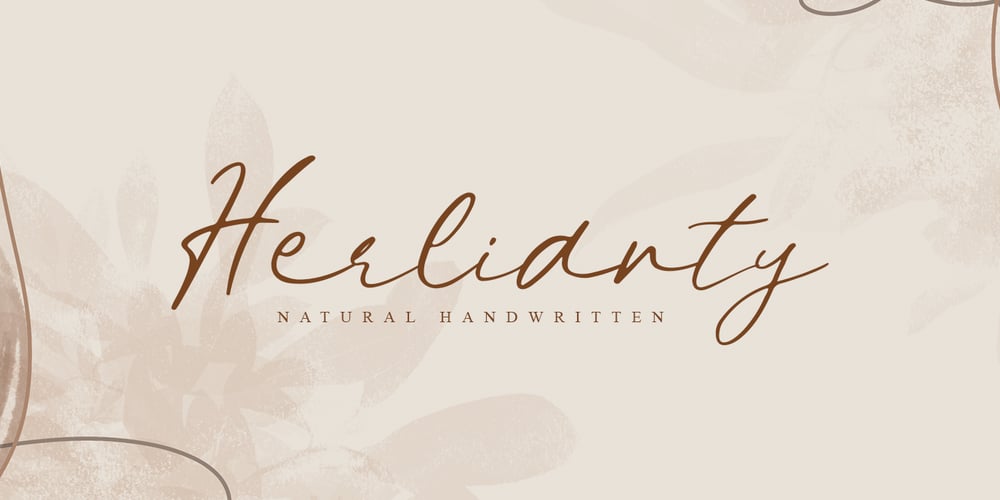
Herlianty Font Family was designed by Muhammad Mujibulloh and published by MJB Letters. Herlianty contains 1 styles and family package options. Say hi to our newest product called ‘Herlianty‘ which is a natural handwritten font, with an original handwritten look, highlighting the uniqueness of each character and having several ligatures that will add an elegant impression to the design. This font is very perfect for wedding designs, wedding invitations, stationery, logotype, branding, display, fashion design, poster and more. Herlianty includes full set of uppercase and lowercase letters, numeral, punctuations and ligatures. Included in this set: Works on PC & Mac Simple installations Accessible in Adobe Illustrator, Adobe Photoshop, Adobe InDesign, even work on Microsoft Word. PUA Encoded Characters – Fully accessible without additional design software